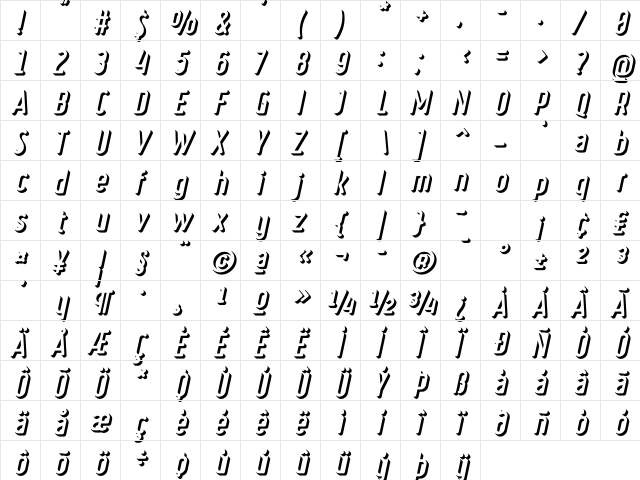
Ruler Volume Extrude Bold Italic Font Preview
Design Context for Ruler Volume Extrude Typeface
Ruler Volume Extrude is a composed and adaptable typeface that performs quietly and consistently across a wide range of design contexts. Its italic angle brings a sense of urgency and motion to the letterforms. The heavy weight commands attention and anchors typographic hierarchies.
Pro Tip: Try Ruler Volume Extrude for annotation and caption copy alongside an upright companion — the contrast in angle creates a dynamic but ordered typographic system.